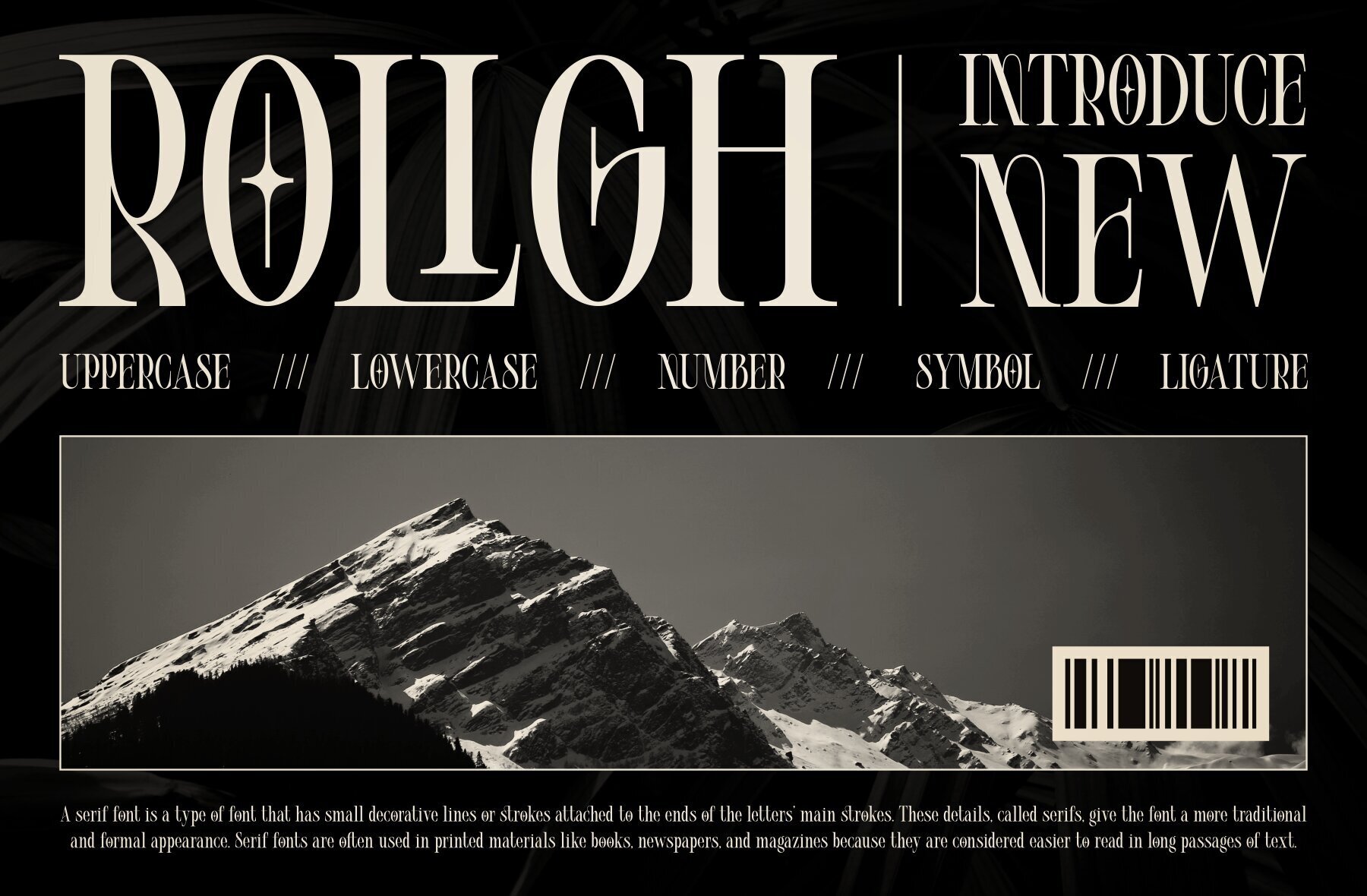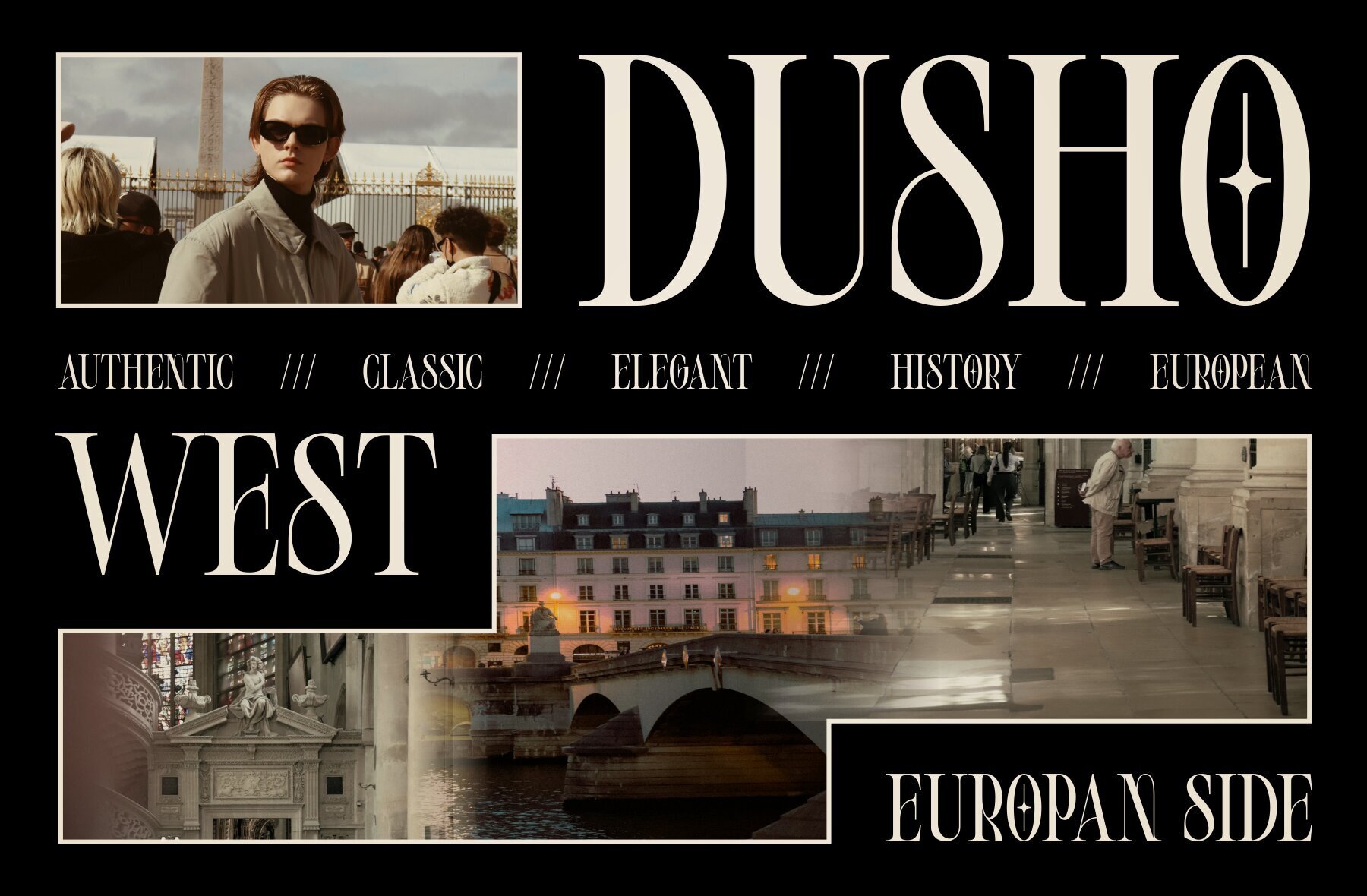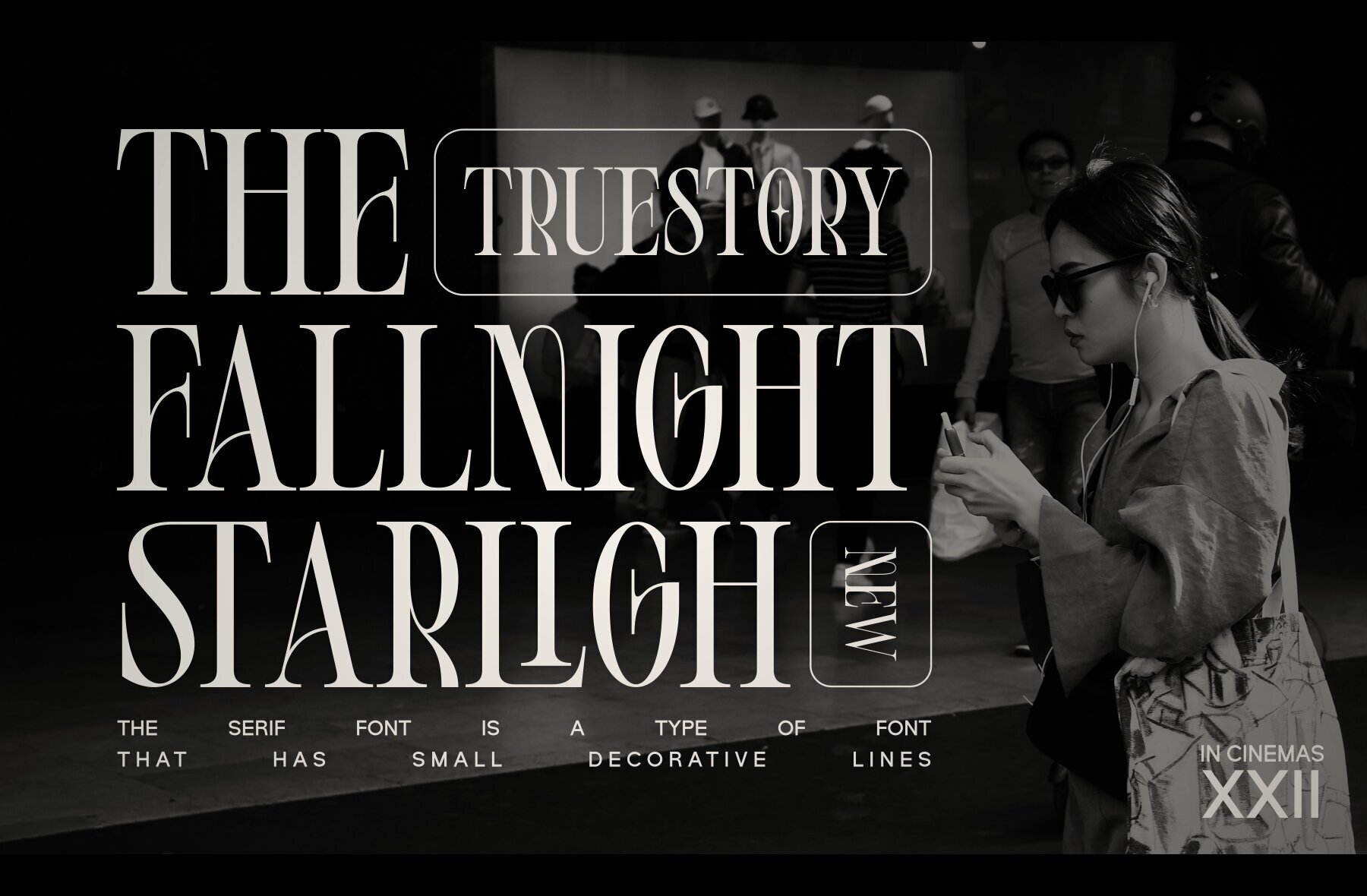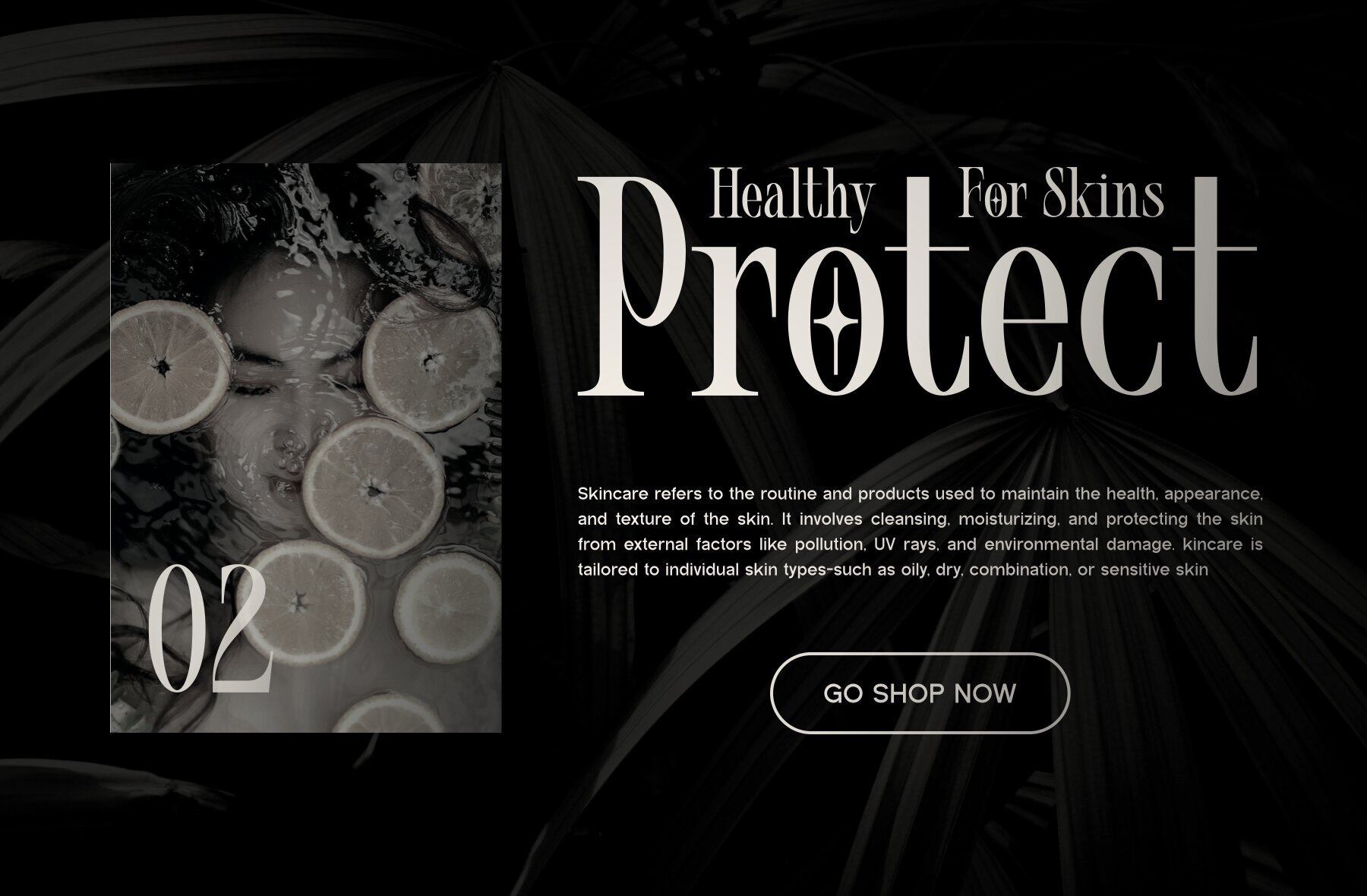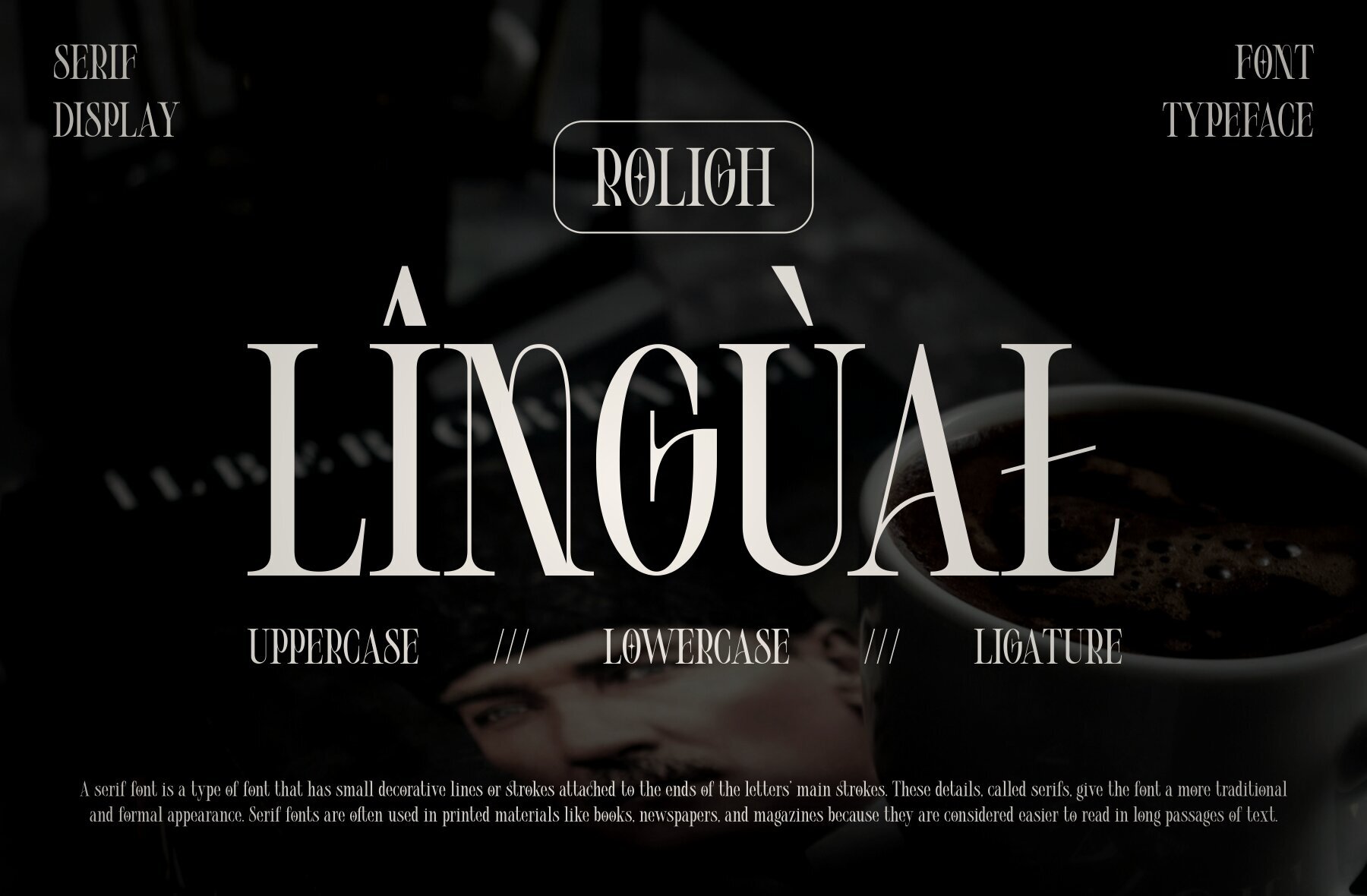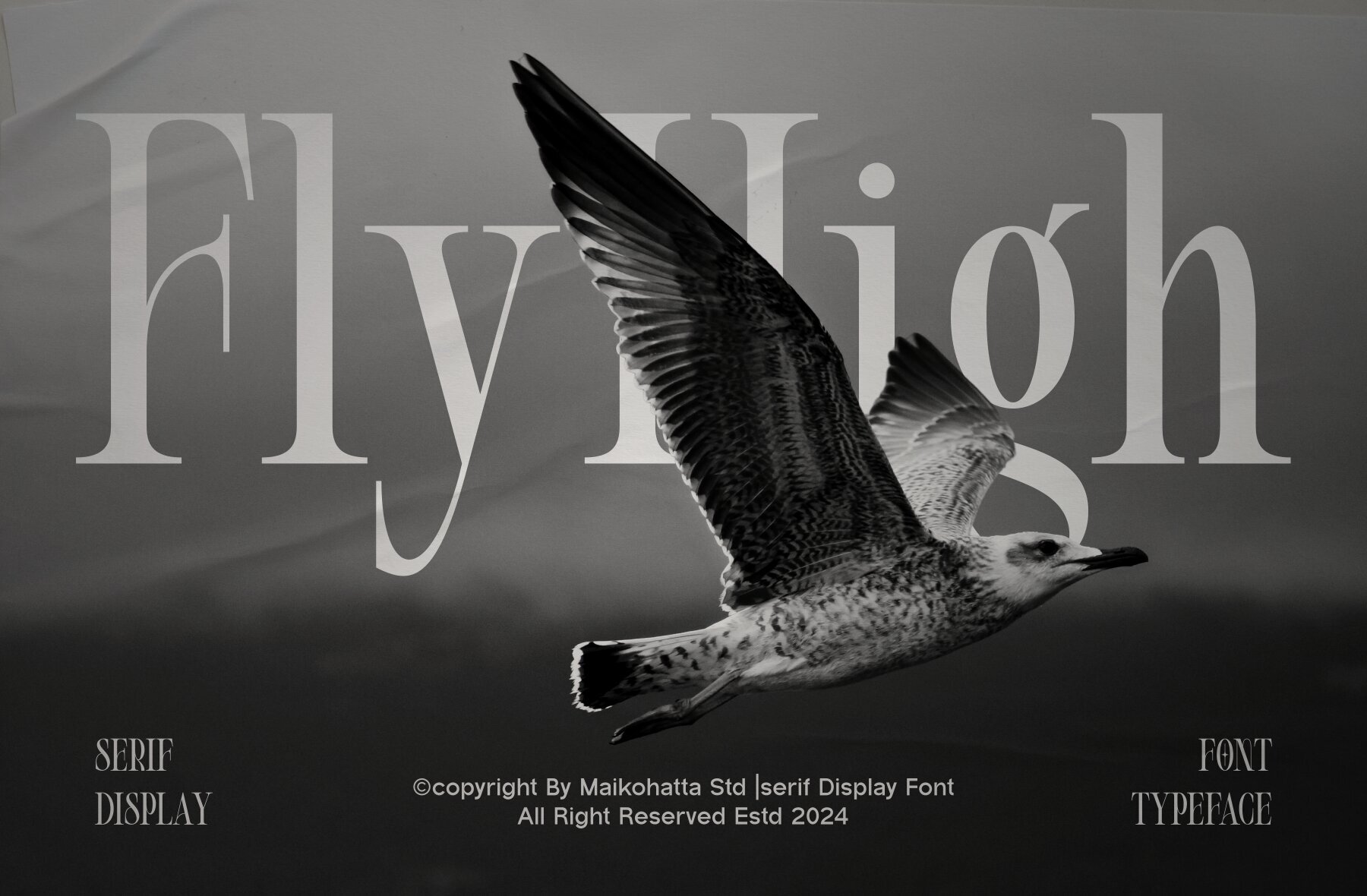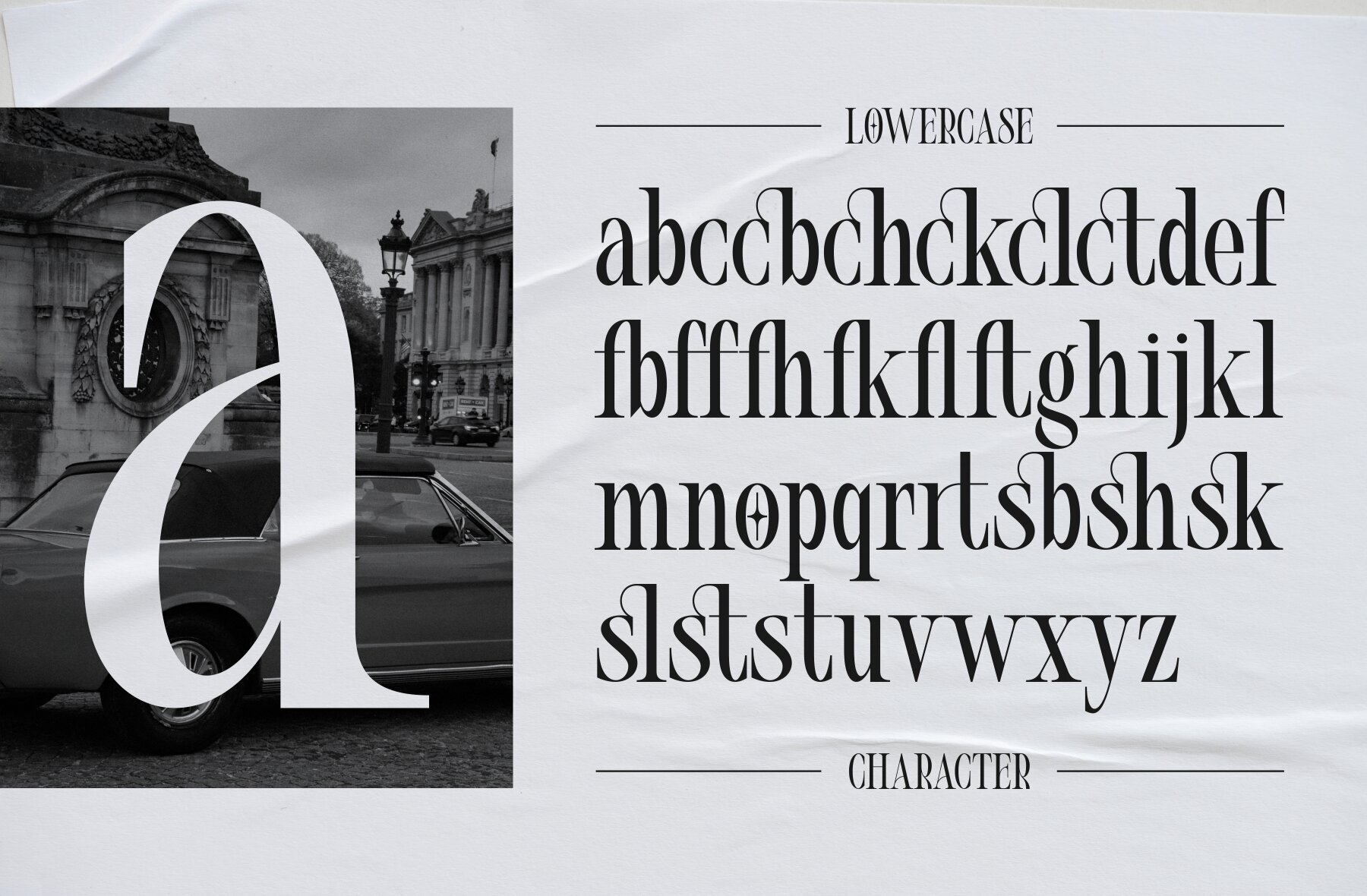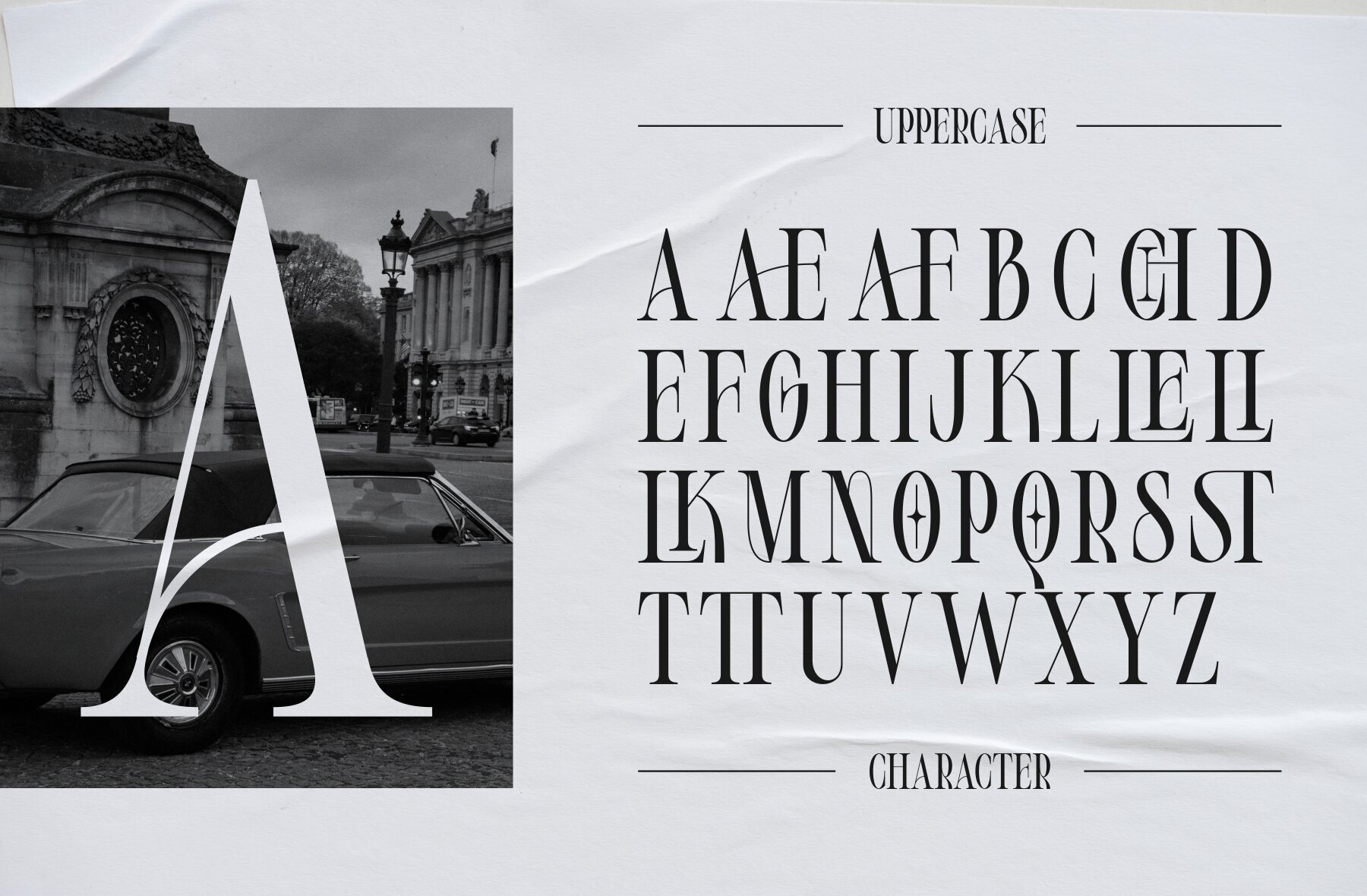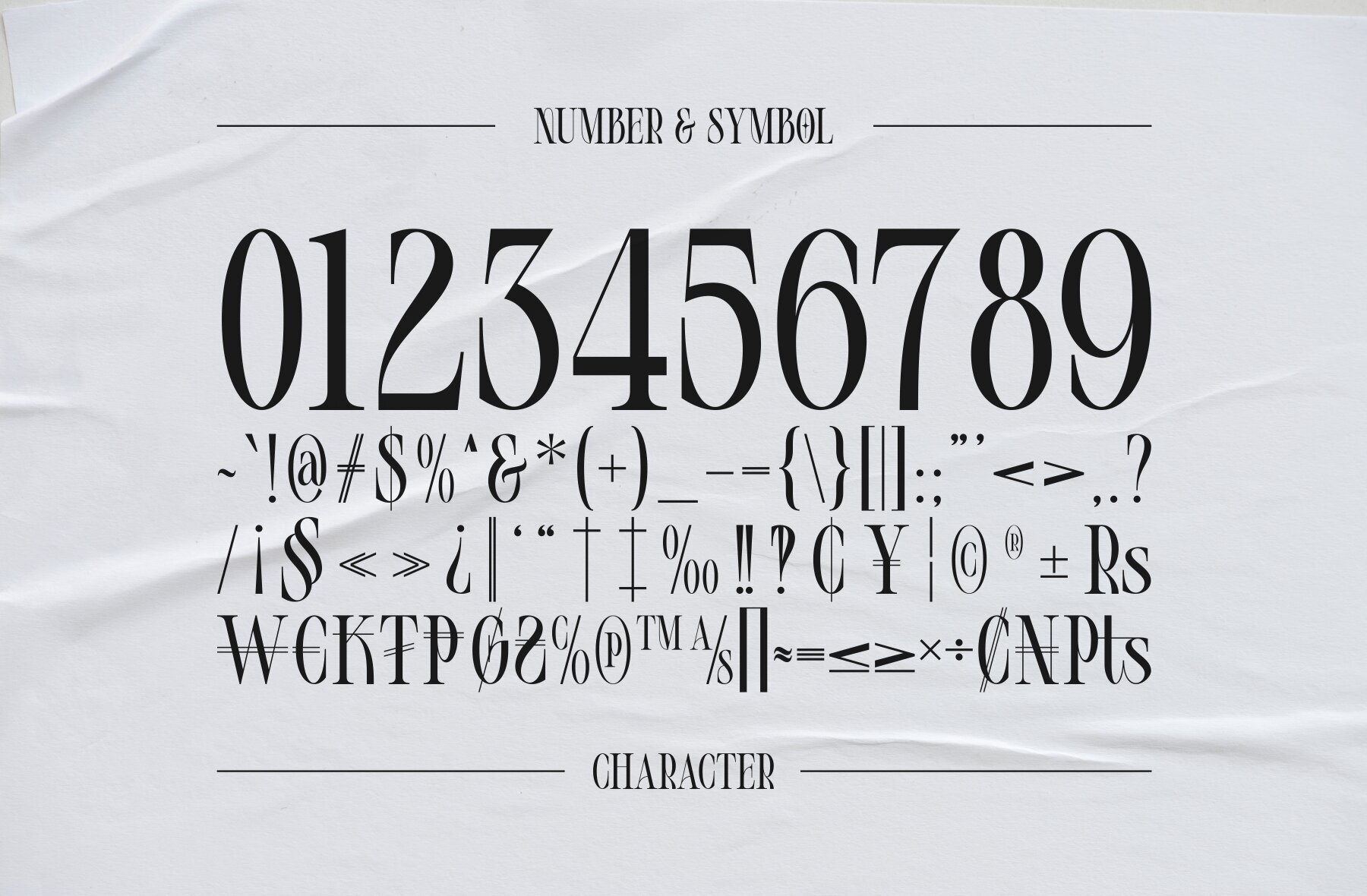
Introducing a classic serif typeface designed to provide a formal and timeless appearance to any printed text. This font features distinctive small projections, or serifs, at the ends of its characters. These serifs contribute to its excellent legibility, making it an ideal choice for books, formal documents, and print publications where clarity at small text sizes is crucial.
This typeface supports uppercase and lowercase characters, offering versatility in design. Additionally, it includes multilingual support to cater to diverse language needs and a selection of ligatures for enhanced typographic creativity. Perfect for designers seeking elegance and readability in their projects, this serif typeface is a valuable addition to any design toolkit.